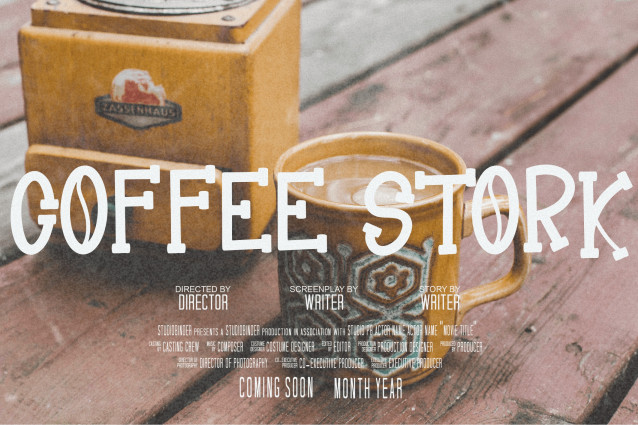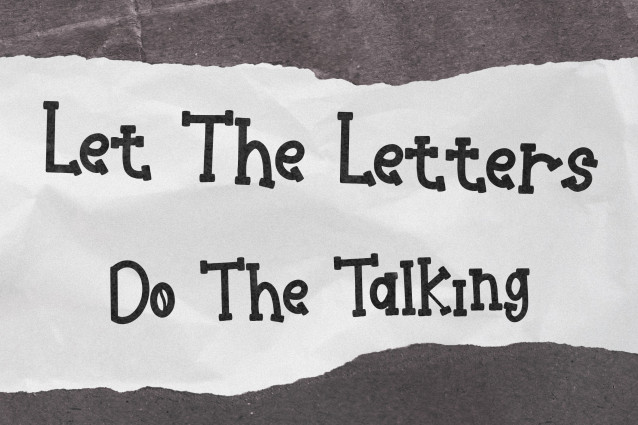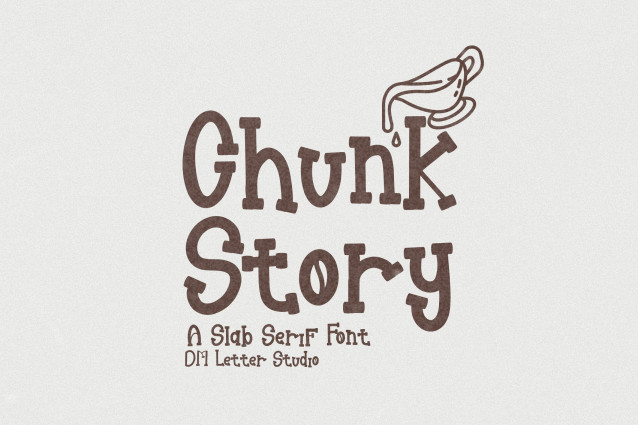
Chunk Story Font
Chunk Story Font is a bold and sturdy slab serif font with a storytelling soul. With thick, blocky serifs and vintage-inspired shapes, this font delivers a grounded presence perfect for headlines, editorial layouts, posters, and bold branding. Whether you’re telling a nostalgic tale or making a modern statement, Chunk Story brings character and impact.